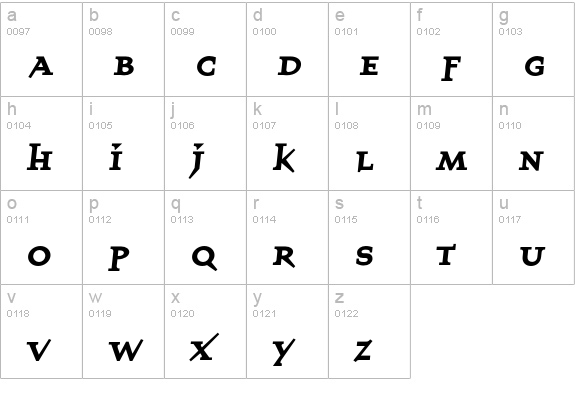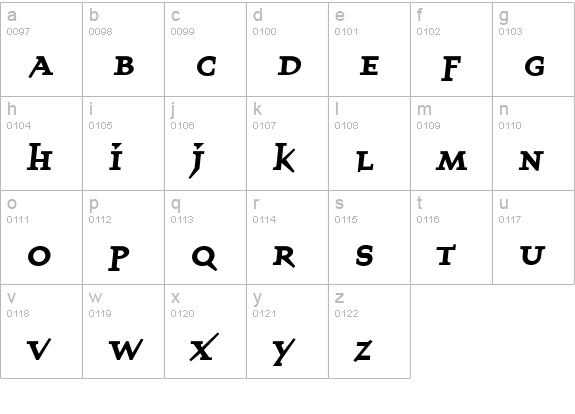
QuartetSmallcapsBold Font Details
QuartetSmallcapsBold font is a sophisticated and elegant typeface that adds a touch of class to any design project. With its clean lines and bold appearance, this font is perfect for creating eye-catching headlines, titles, and logos. The small caps feature adds a unique and stylish element, making it stand out from other fonts. One of the best things about QuartetSmallcapsBold font is that it is free. That's right, you can download this amazing font for free at FontsMarket.com. Whether you are a professional designer or someone who just loves to experiment with typography, having access to high-quality fonts without breaking the bank is truly a game-changer. Not only is QuartetSmallcapsBold font visually appealing, but it is also versatile and easy to use. Its readability ensures that your message is conveyed effectively, while its boldness adds a level of emphasis and impact. Whether you are designing for print or digital media, this font will effortlessly elevate your work to the next level. So, why wait? Don't miss out on the opportunity to enhance your design projects with QuartetSmallcapsBold font. Download it for free at FontsMarket.com and start creating stunning visuals that will captivate your audience. With its timeless appeal and availability at no cost, this font is truly a must-have for any designer or typography enthusiast.